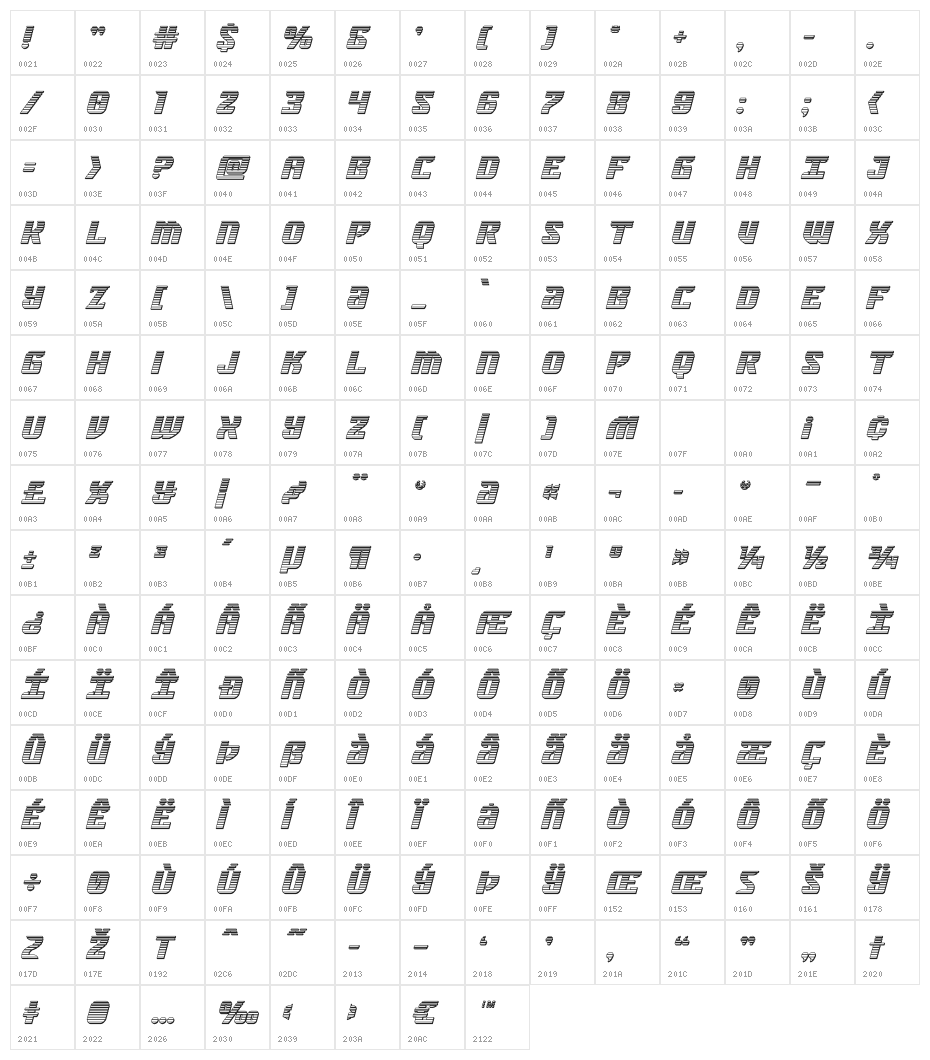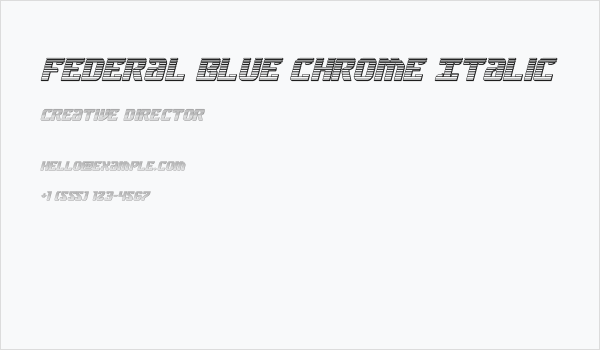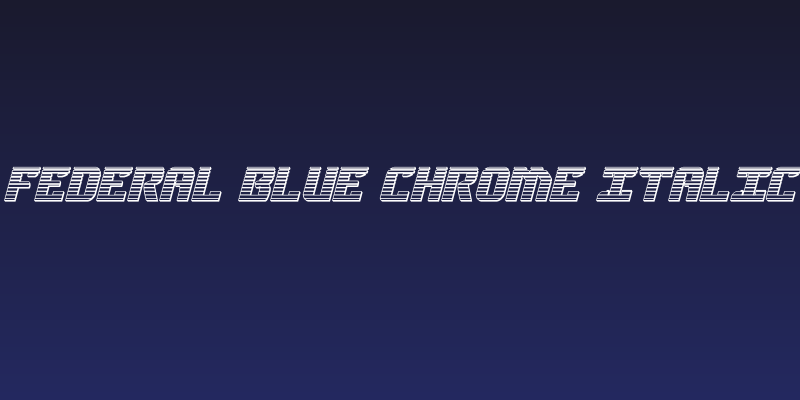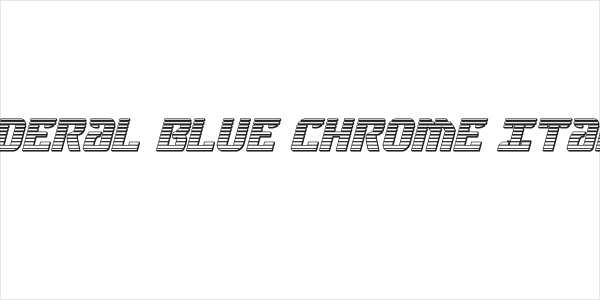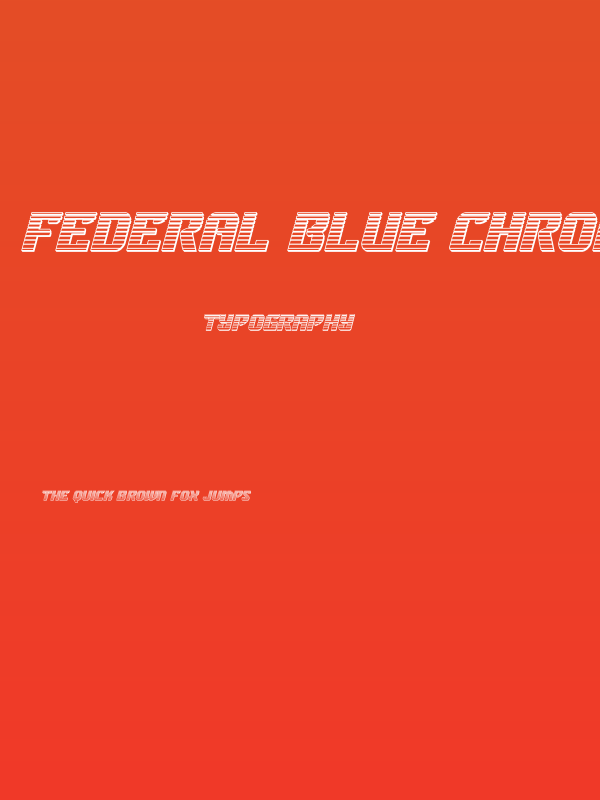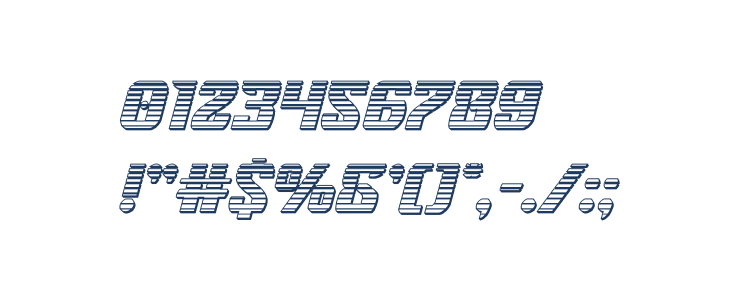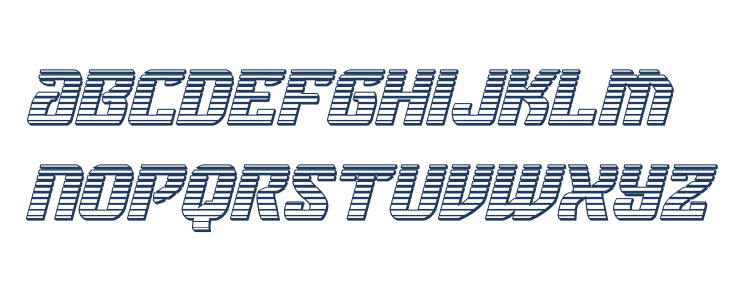
Federal Blue Chrome Italic Font
Federal Blue Chrome Italic Description
This font features a bold, futuristic design with a distinctive striped pattern running horizontally across each character. The letters are italicized, giving them a dynamic, forward-leaning appearance. The uppercase and lowercase letters maintain a consistent style, with sharp angles and clean lines that enhance the modern aesthetic. The numerals and special characters are equally bold and maintain the same striped motif, ensuring uniformity across all glyphs. This font's unique style makes it stand out, offering a visually striking option for various design projects.
| Overall Style | Futuristic, Modern |
| Proposed Projects | Ideal for sci-fi themed posters, video game graphics, or modern branding projects. |